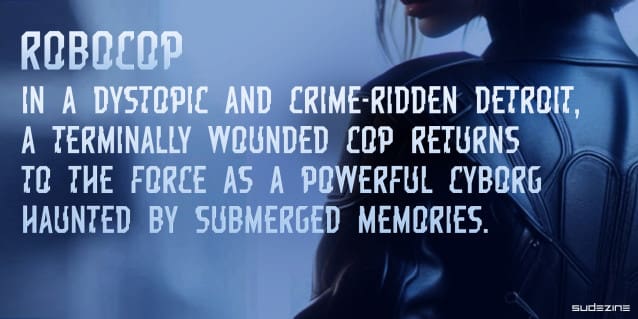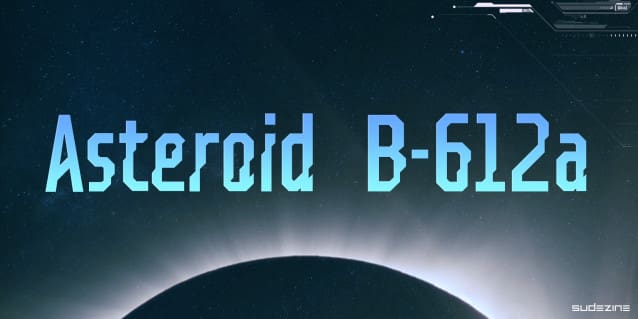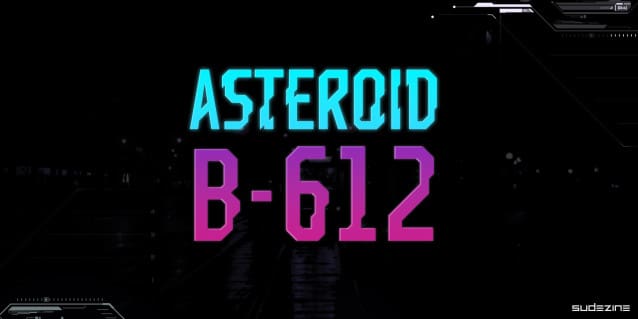
SD Asteroid B -612 Font, is a modern sans serif display font. with unique lowercase & uppercase, emphasize the futuristic sci-fi, Galaxy Space theme.
| Designer Name: | Sudezine |
| Classification: | Display Fonts, Techno / Futuristic Fonts |